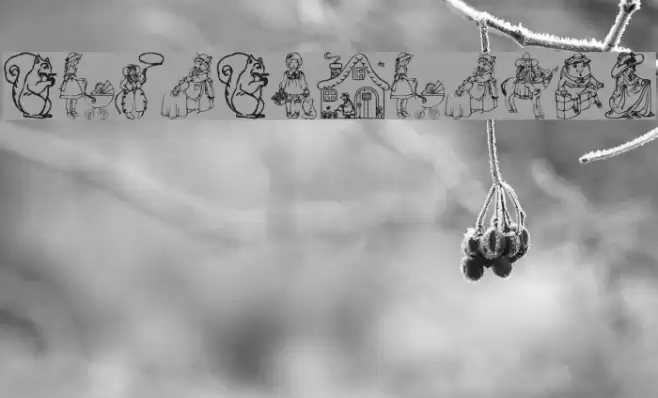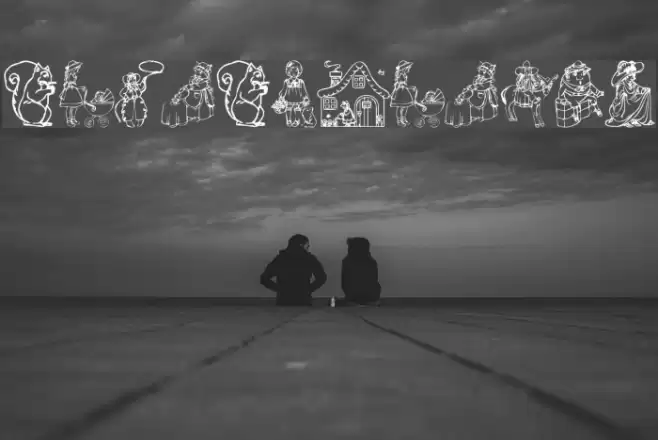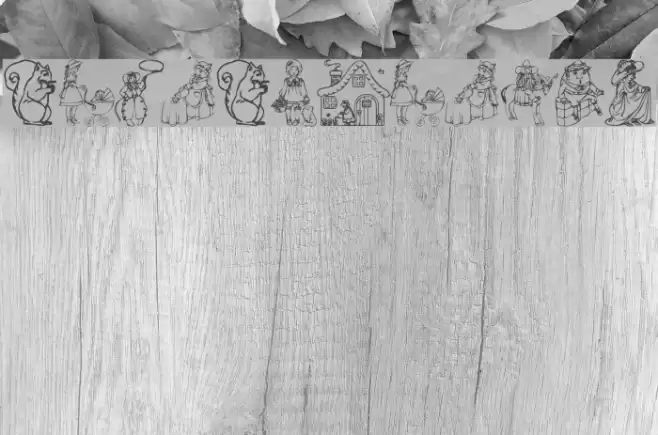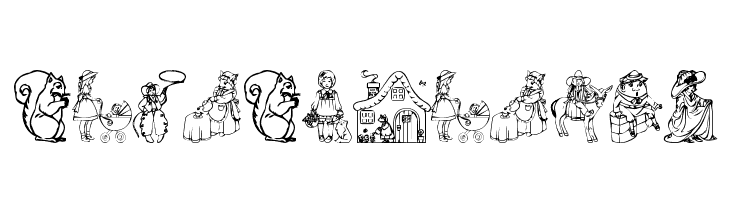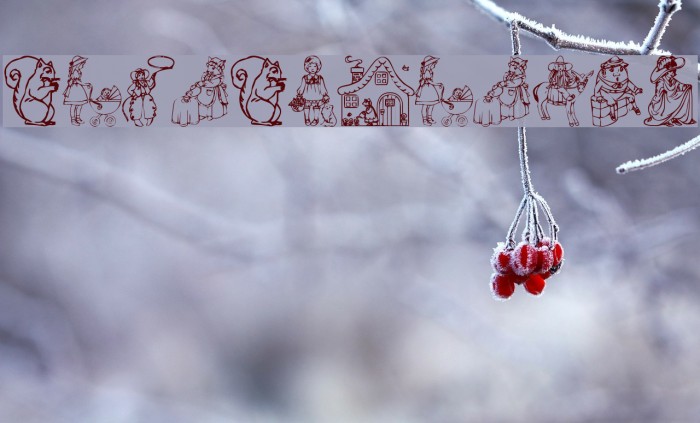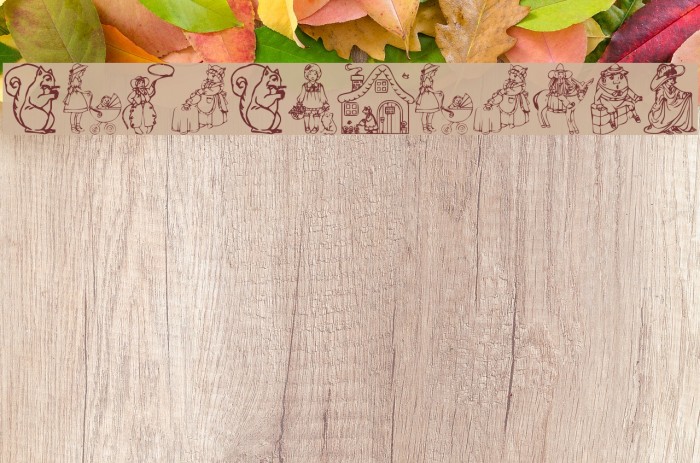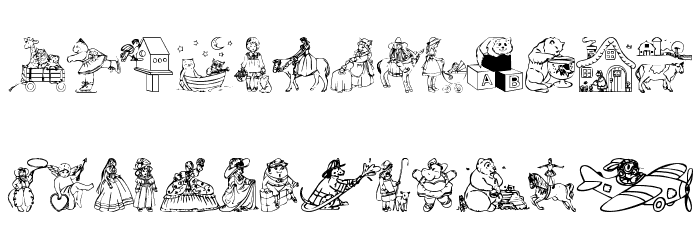
DingDelights Font
DingDelights Description
A decorative dingbat font featuring detailed line art illustrations of animals, fairy tale characters, and whimsical scenes, each corresponding to a different letter or symbol.
Whimsical dingbat font with storybook-themed illustrations from Dingbats fonts.
- Proposed Projects: Children's books, educational materials, invitations, themed party decor, scrapbooking.
- Overall Style: Decorative, Whimsical, Storybook
- Use Case: Illustrative accents, decorative elements, thematic dividers.